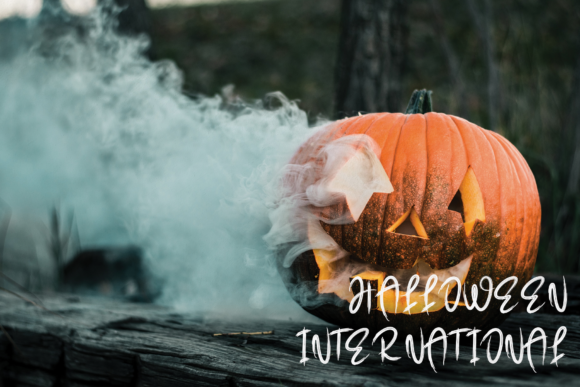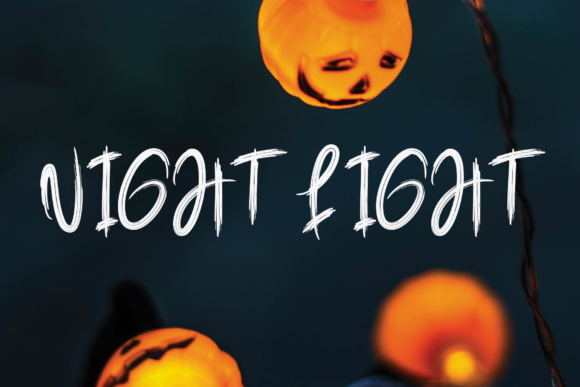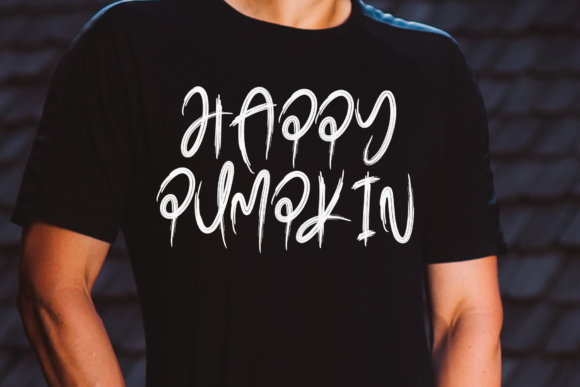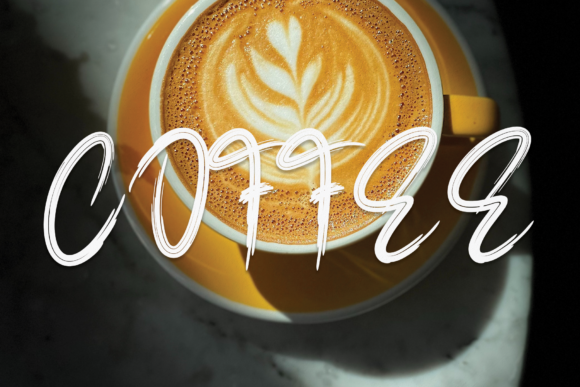
Get Ready for a Spooktacular Design Twist
As the days get shorter and the nights get cooler, I find myself craving creative projects that capture the essence of the season. There’s something about the eerie atmosphere of Halloween that sparks my imagination and inspires me to get crafty. Whether it’s whipping up a batch of spooky decorations or designing festive stationery, I love how the holiday season brings out the kid in me.
That’s why I’m thrilled to introduce you to the Haunted Pumpkin Font – a playful, handwritten font that’s perfect for adding a touch of whimsy to your Halloween projects. With its quirky characters and spooky charm, this font is sure to bring a smile to your face and a chill to your bones. Whether you’re a designer looking to add some seasonal flair to your work or a crafter seeking inspiration for your next project, the Haunted Pumpkin Font is a valuable addition to your design toolkit.
Haunted Pumpkin Font Key Features
- Font Family: A spooky and unique font family designed to evoke a sense of autumnal mystery.
- Size: The font family includes multiple weights, ranging from 100 to 900, providing flexibility for different design needs.
- Unique Characteristics: Distinctive, hand-drawn letterforms with intricate details, creating a sense of depth and texture.
Haunted Pumpkin Font Review
First off, I’d say that Haunted Pumpkin Font is a unique and quirky addition to any design project ✨. The font’s playful, hand-drawn feel is reminiscent of traditional Halloween decorations, making it perfect for seasonal or spooky-themed designs. The font’s bold, thick lines and intricate details add a level of sophistication and depth that’s hard to find in other spooky fonts.
- The font’s versatility is a major plus, as it can be used for a wide range of applications, from greeting cards to logos.
- The Haunted Pumpkin Font is highly customizable, allowing designers to adjust the size, color, and texture to fit their specific needs.
However, there are a few limitations to consider ⚠️. The font’s irregularities and imperfections, while charming in small doses, can be overwhelming when used extensively. Additionally, the font’s limited character set may require designers to use workarounds or additional fonts to achieve the desired effect.
Overall, I’d say that Haunted Pumpkin Font is a solid choice for designers looking to add a touch of whimsy and personality to their projects. While it may not be suitable for all applications, its unique charm and versatility make it a great addition to any design toolbox.
The Haunted Pumpkin Font is perfect for:
1. Halloween-themed designs and decorations.
2. Spooky or eerie-themed websites and social media posts.
3. Horror movie or book covers.
4. Seasonal marketing materials and advertising campaigns.
To get the most out of the Haunted Pumpkin Font, try the following:
1. Pair it with other spooky fonts or graphics for a cohesive look.
2. Experiment with different font sizes and colors to create a dramatic
Q: What is the recommended font size and style for the Haunted Pumpkin Font?
The Haunted Pumpkin Font is designed to be used at font sizes between 12 and 48 points. For optimal legibility, we recommend using the Regular or Bold styles for body text and the Italic style for emphasis. You can experiment with different font sizes and styles to find the perfect combination for your design project.